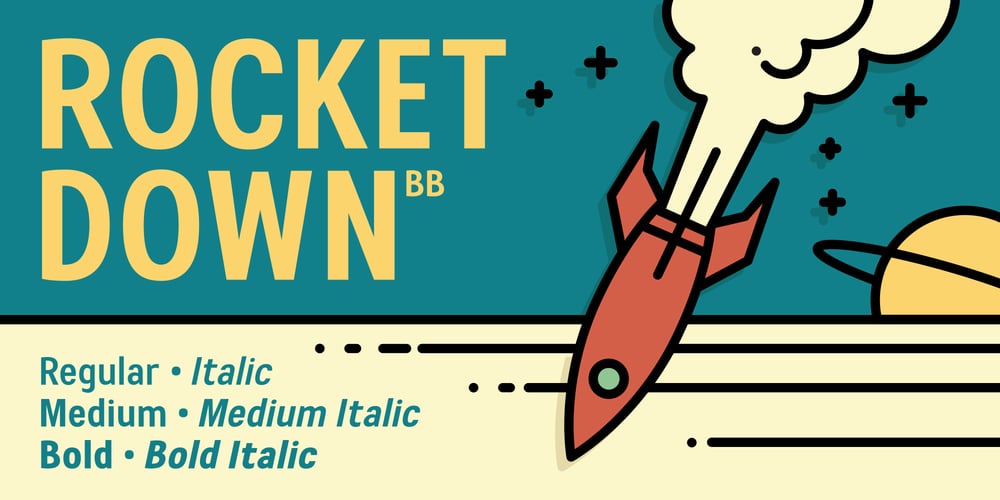
Rocket Down BB Font Family was designed by Nate Piekos and published by Blambot. Rocket Down BB contains 6 styles and family package options. Rocket Down BB is a lively body copy font for those of us with an adventurous spirit! Sure, the universe may have it in for us, but we’re still going to put on our jet packs, board the starship, and head out into the unknown, aren’t we? Includes regular, italic, medium, medium italic, bold, and bold italic.